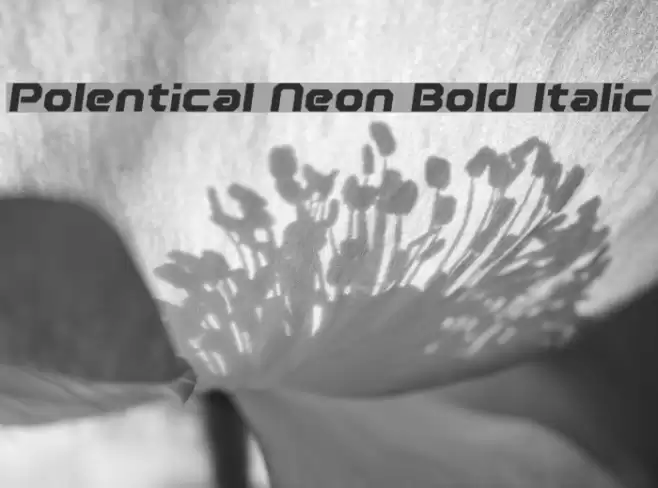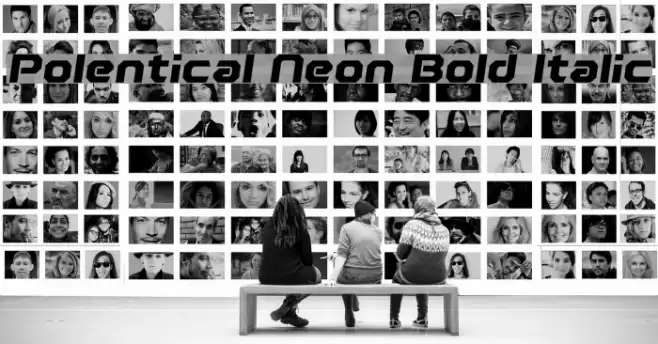
Polentical Neon Bold Italic Font
Polentical Neon Bold Italic Description
This font features a bold and italicized style with a futuristic and geometric design. The characters have a distinct angular shape, giving them a dynamic and energetic appearance. The uppercase and lowercase letters maintain a consistent style, with sharp edges and a slightly condensed form. The numbers and special characters follow the same design principles, ensuring uniformity across the typeface. The font's bold weight and italic slant make it suitable for attention-grabbing headlines and modern design projects. Its unique style is ideal for projects that require a contemporary and edgy look.
A bold, italicized font with a futuristic and geometric design from Uncategorized fonts.
- Proposed Projects: Ideal for modern branding, tech-related designs, futuristic posters, and dynamic headlines.